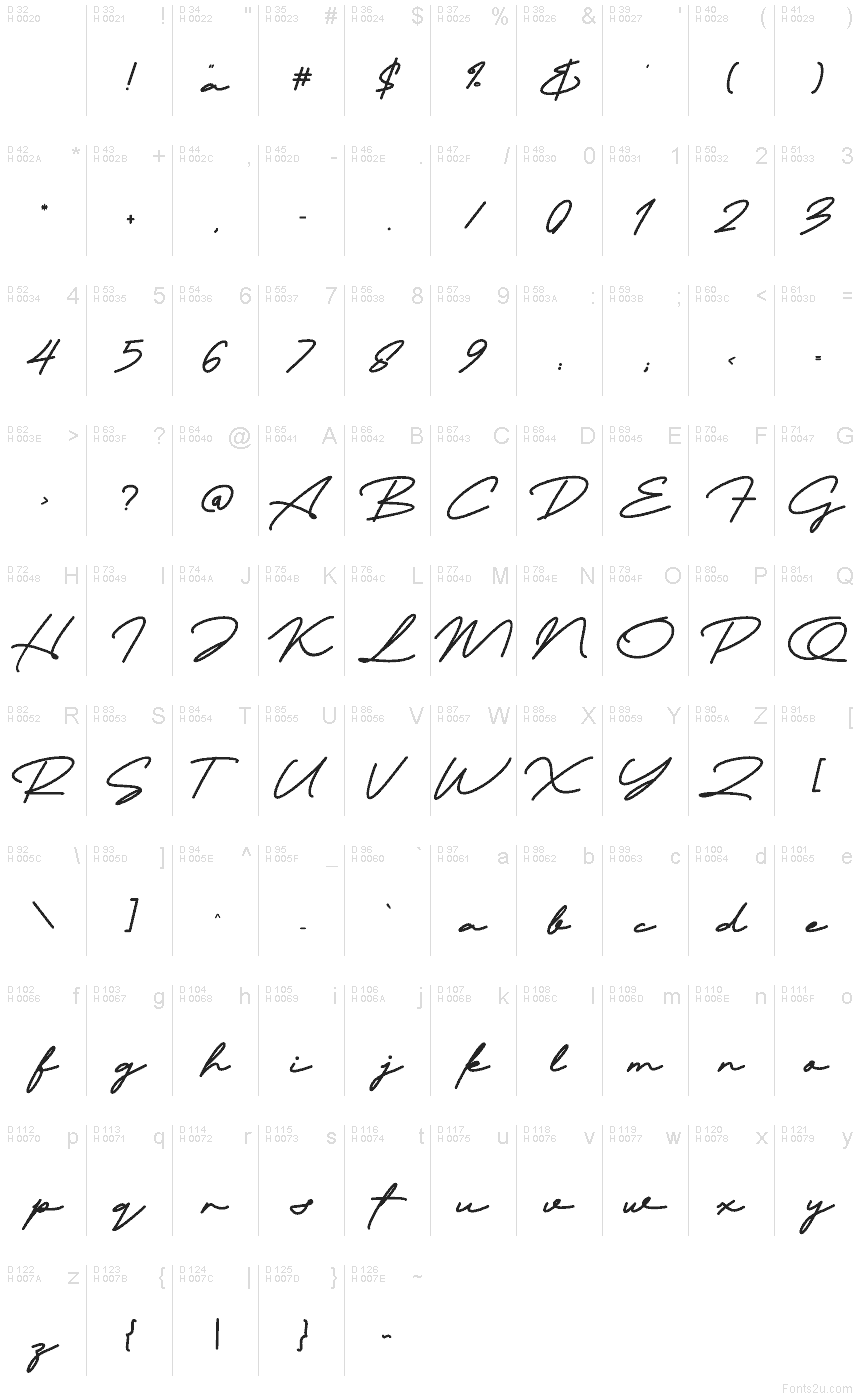
Blank Script
Blank Script font is a handwritten typeface by Riyadh Rahman that captures fluid movement and casual sophistication. With its light weight, elegant strokes, and modern flair, the font brings forth a unique touch to each typed word. This free handwritten font comes together to reflect style without overpowering other elements in design.
Major use cases include handwriting work, branding projects (ex: logos), website designs, invitation cards, business cards, book covers or title pages (of magazines or books), advertisements (including product packaging), social media posts where readable text matters most along with gaining attention from viewers alike!